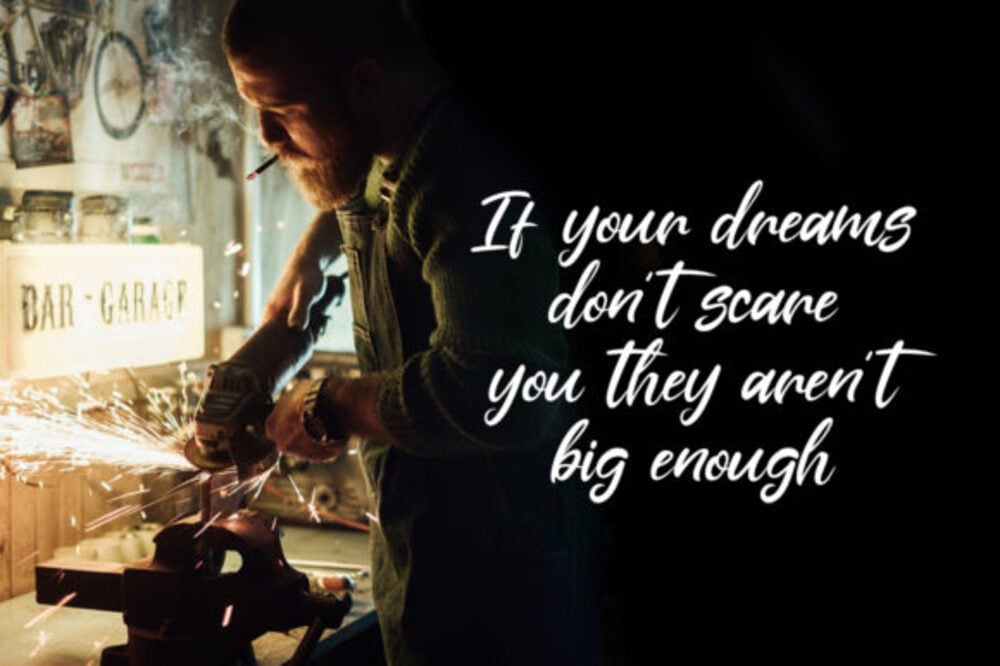
Alansky Font
Alansky is a sleek, modern serif font with a touch of vintage elegance. Its refined curves and balanced proportions make it perfect for luxury branding, editorial design, and stylish logos. With high contrast and graceful letterforms, Alansky exudes sophistication while maintaining excellent readability. Ideal for premium aesthetics, it adds timeless charm to any creative project.